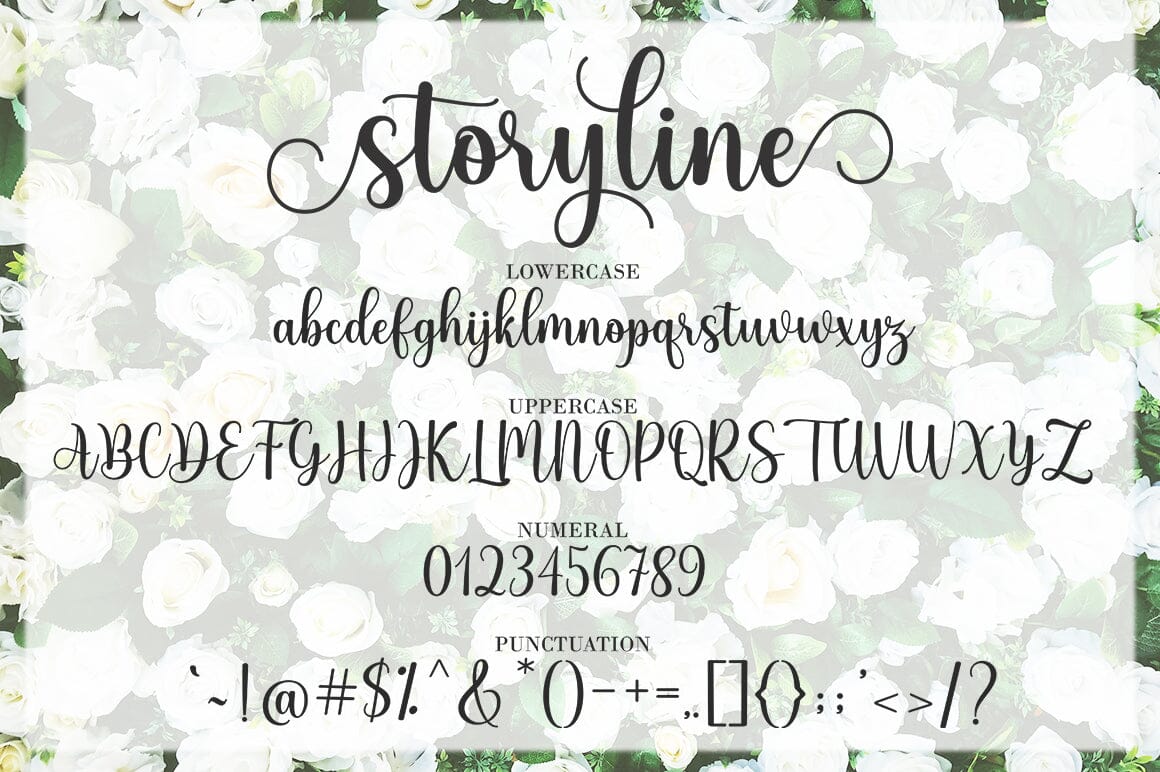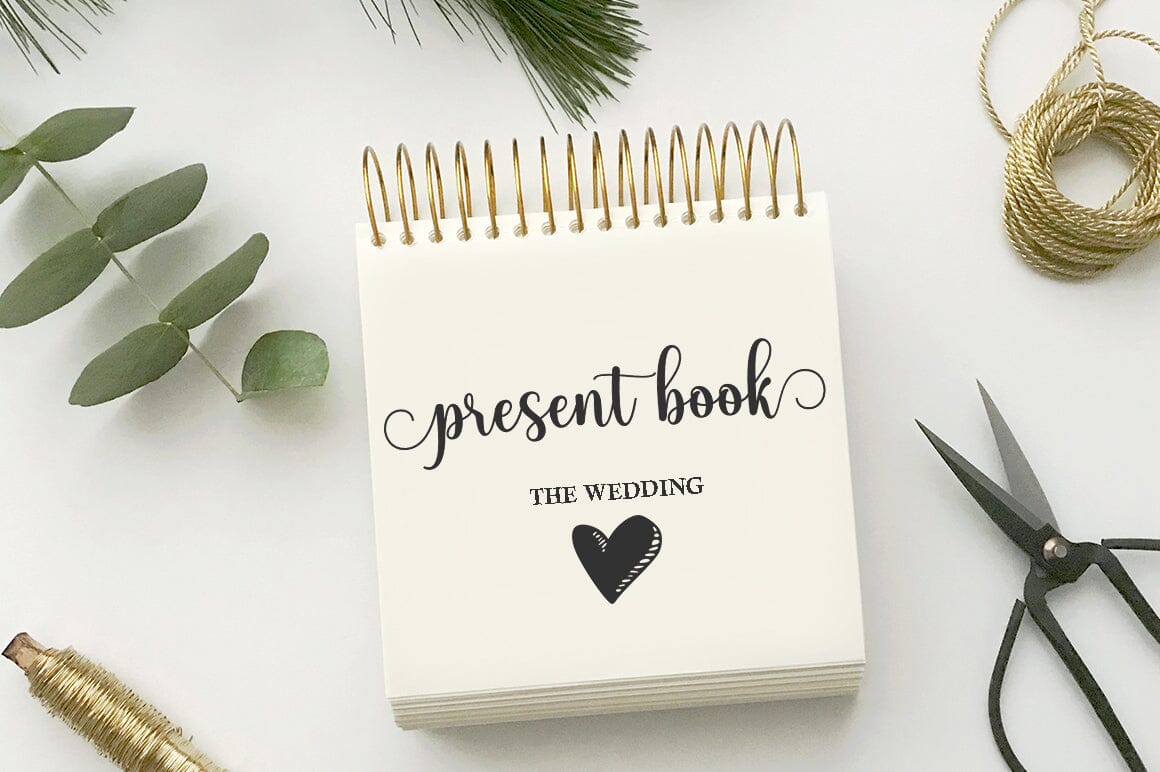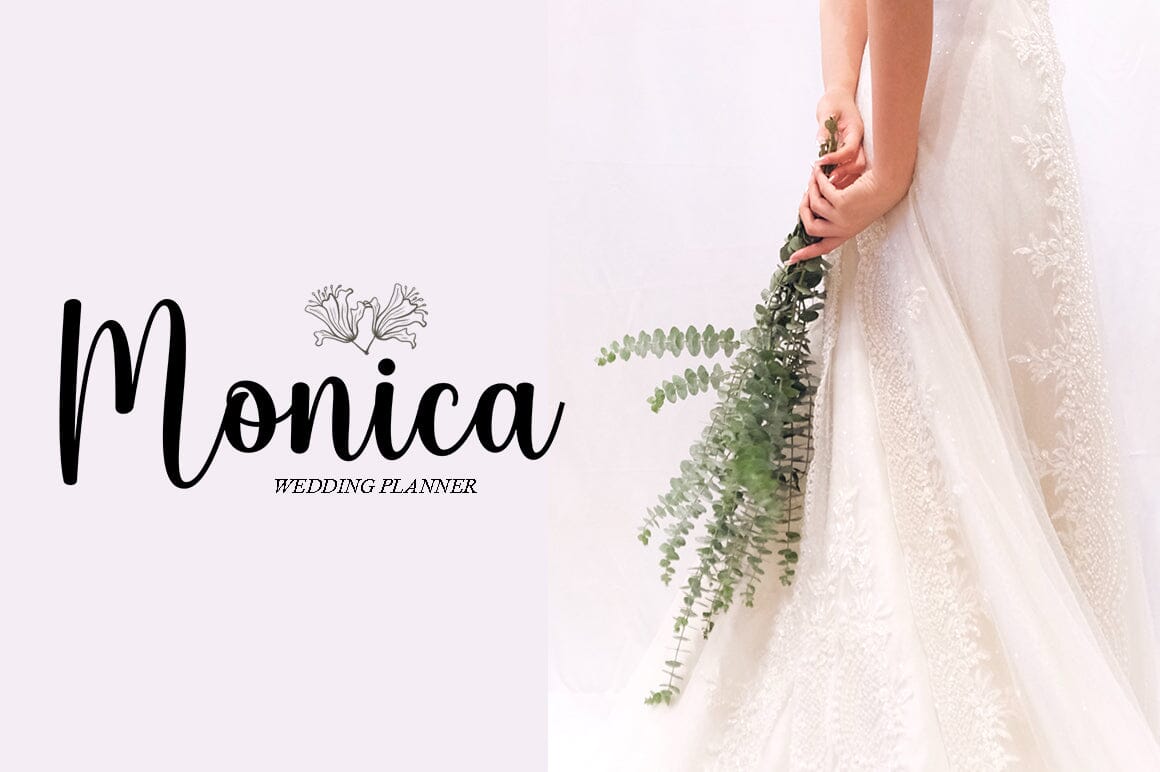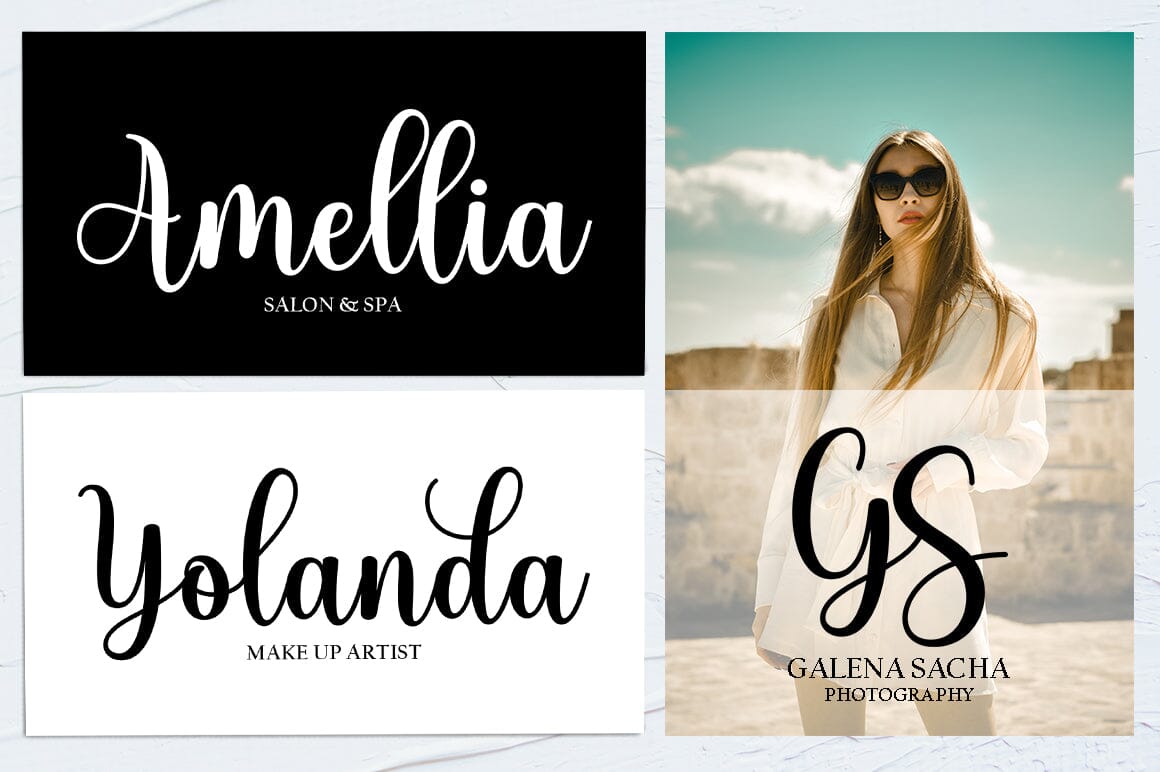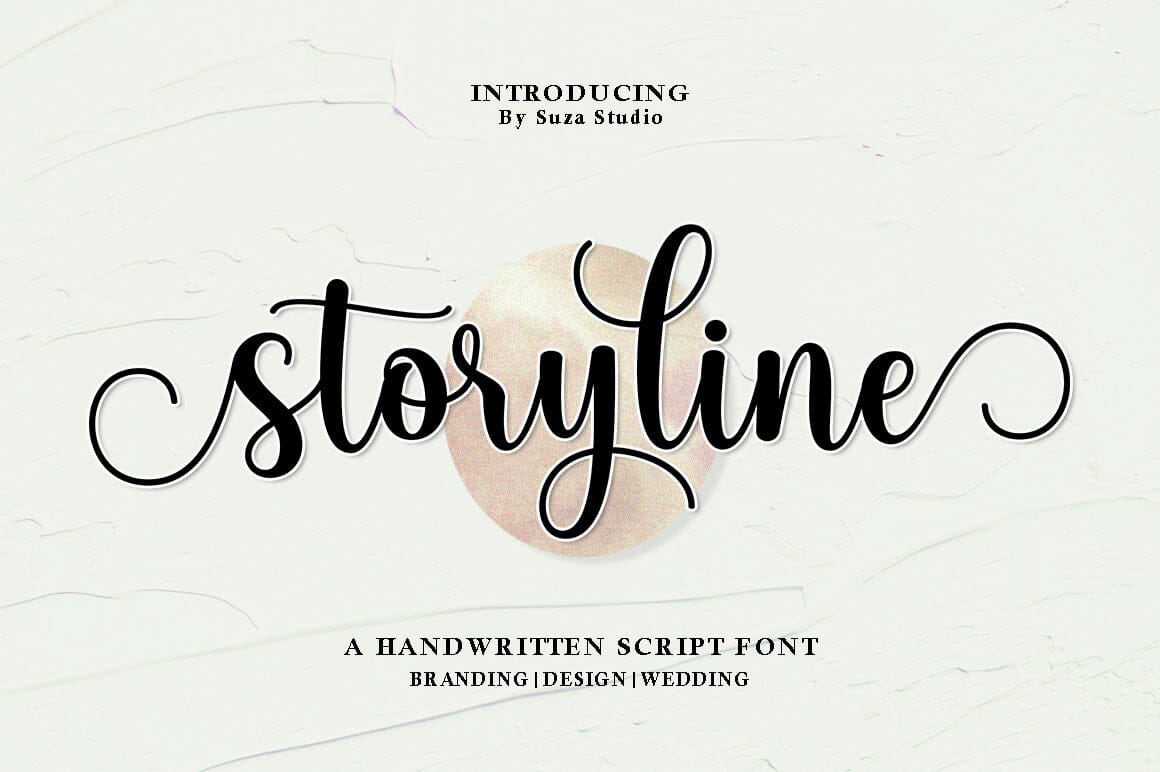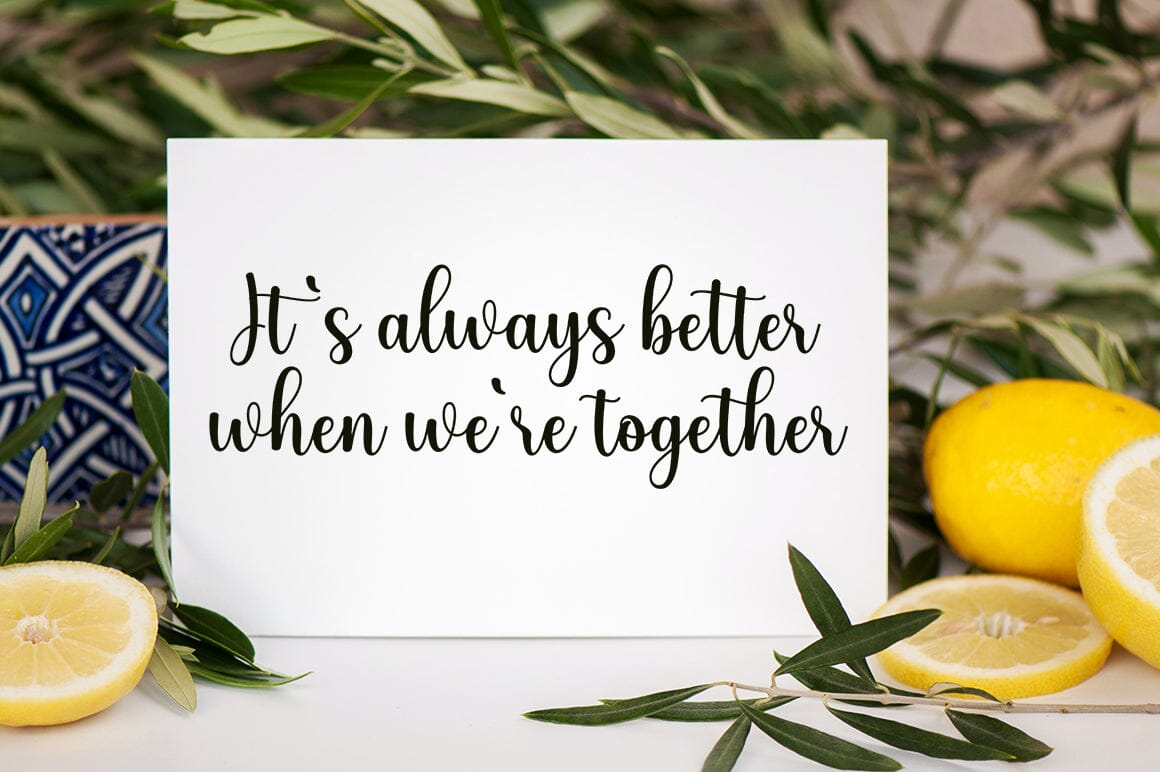
Storyline
About Storyline
Storyline is a sweet and romantic calligraphic typeface with characters dancing along the baseline. It will add luxury to any design project you want to create! This font is PUA encoded which means you can access all the amazing glyphs and binders easily! Files Included: Storyline Script.OTF/TTF This font is perfect for quotes, titles, blogs, logos, branding, invitations and more! You will be able to use this font duo in ANY program! Thank you!!